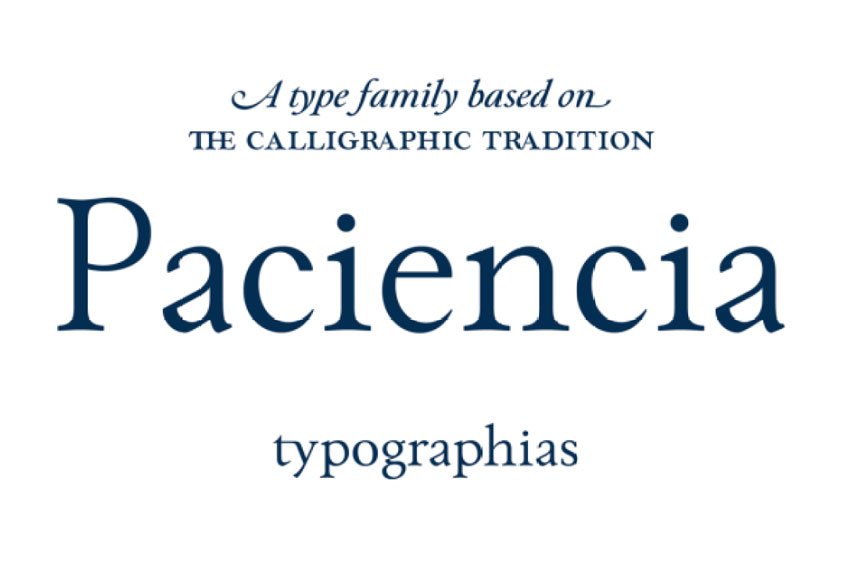
Paciencia Font
Paciencia Font is typography is created and posted by Typographias. This family was created for graduation in 2009 based on the calligraphic study and simple line draw with a broad nib pen and its basic idea was humanistic proportions inclination.
Comparable to its prehistory that started with the ink and paper, it has evolved for the last 8 years to be digitalized and made into the fonts.